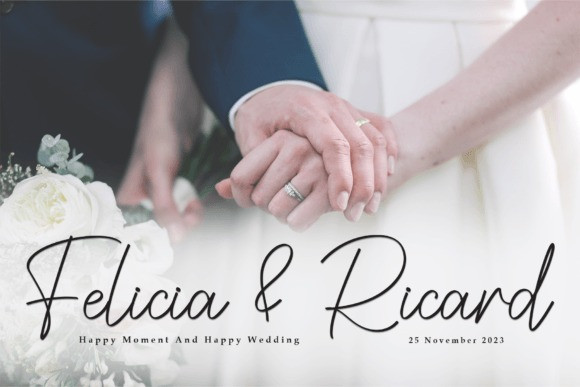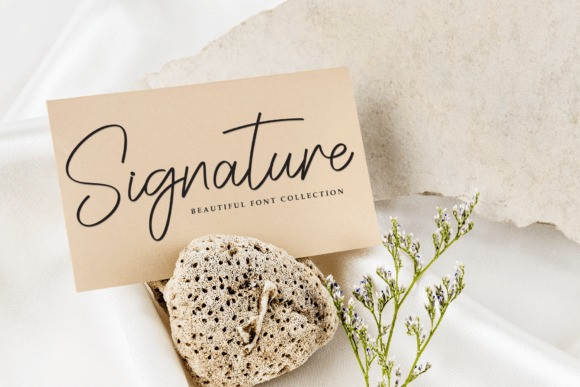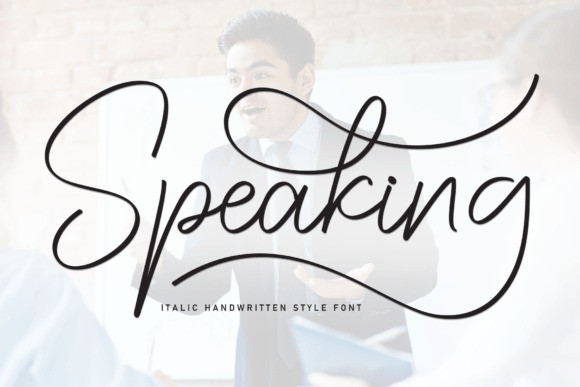
Speaking Handwriting Font
Speaking Handwriting Font is an exquisite handwritten font, masterfully designed to become a true favorite. It maintains its classy calligraphic influences while feeling contemporary and fresh. Fall in love with it and bring your projects to the highest levels